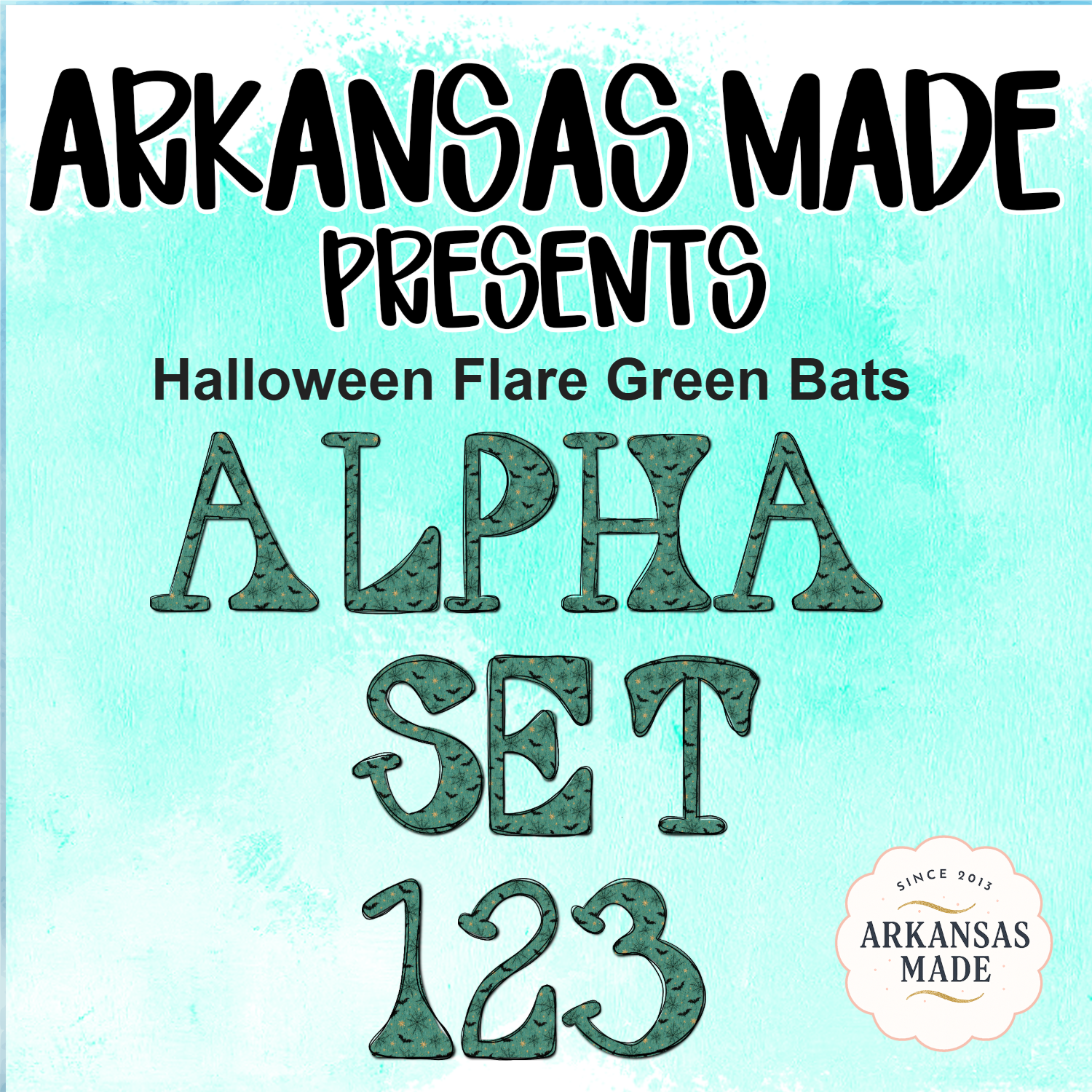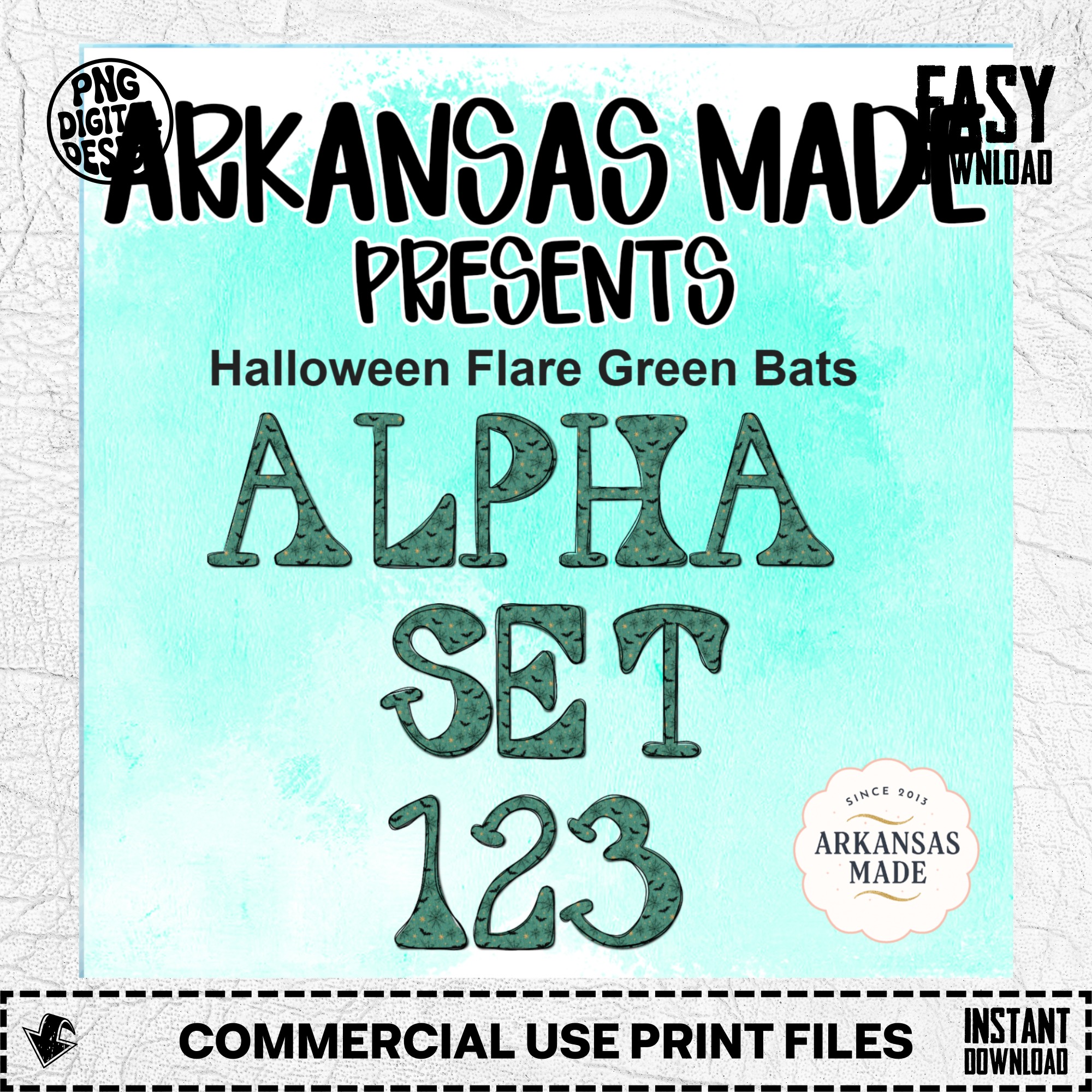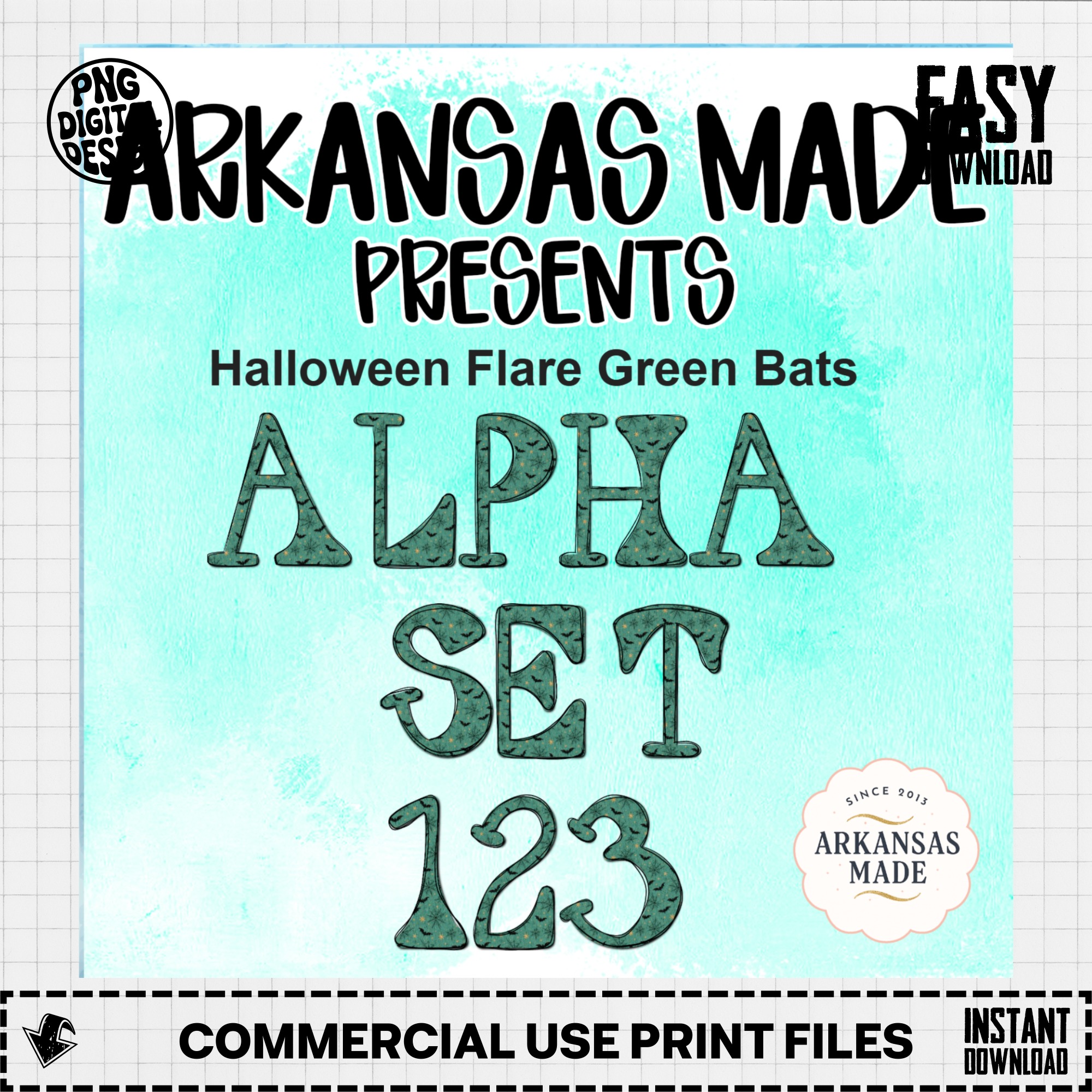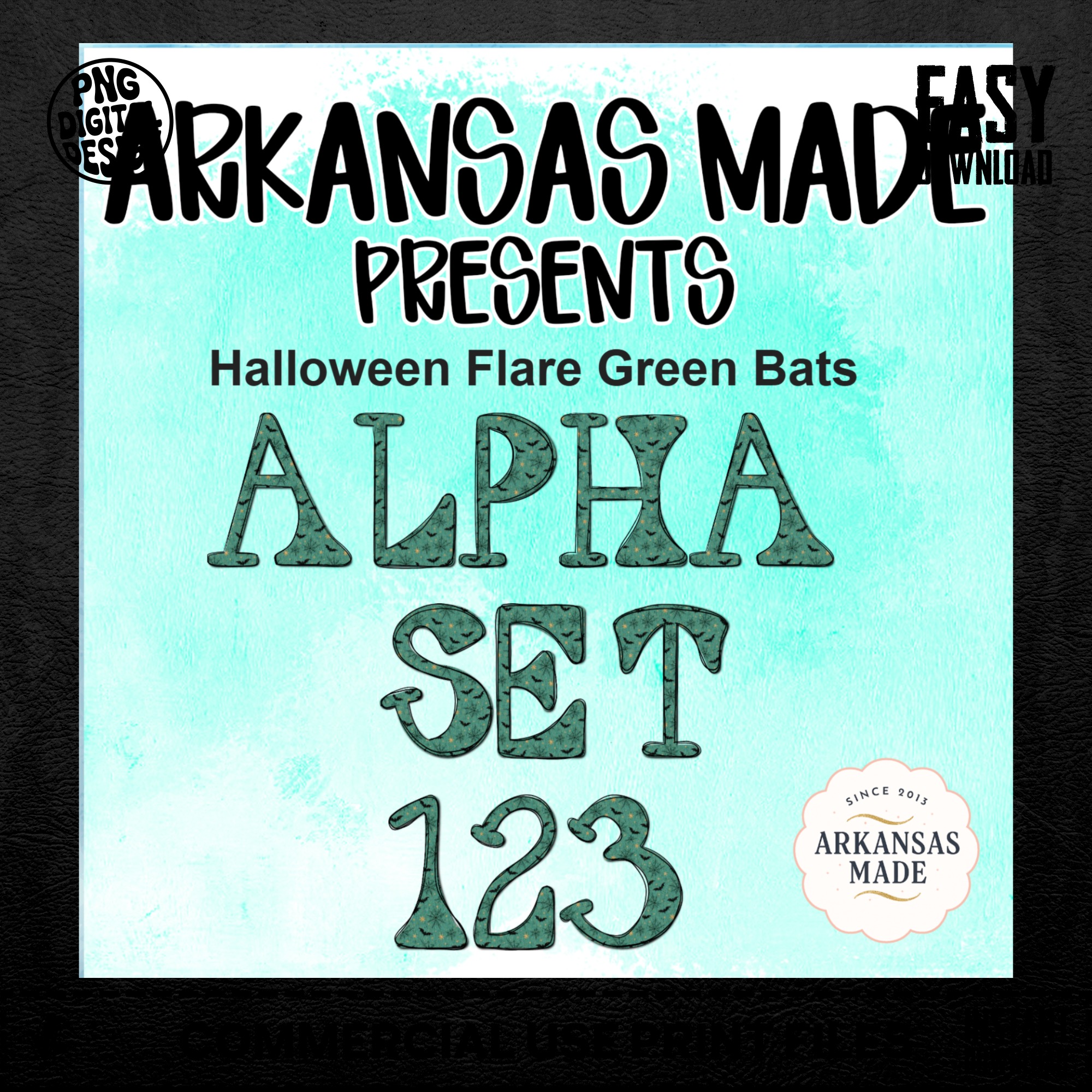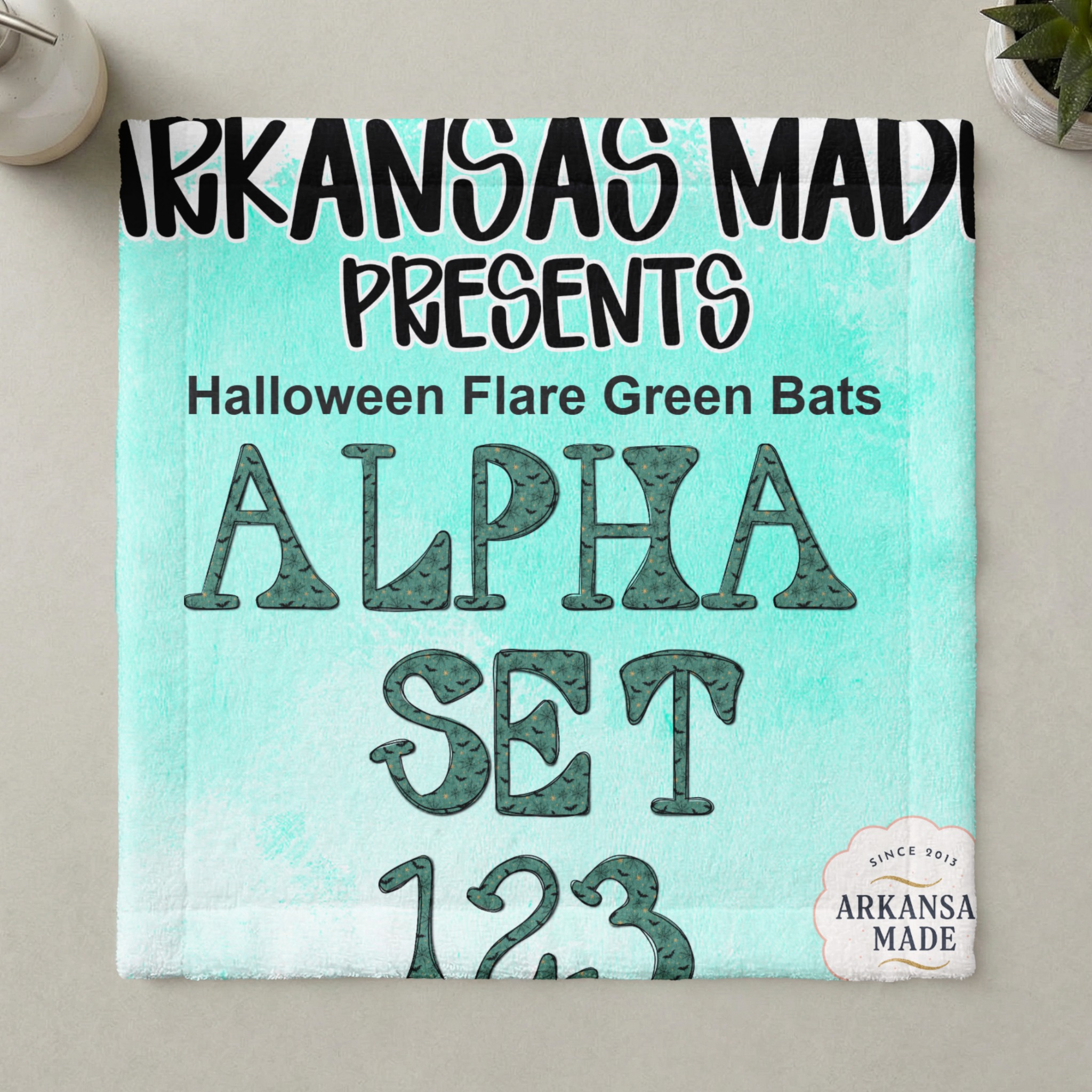
Halloween Flare Green Bats Alpha Set 123 Digital PNGs – Spooky Bat Alphabet & Faux Gold Spiderweb Font Letters for Crafts, Sublimation
Discover our Halloween Flare Green Bats Alpha Set 123 Digital PNGs, perfect for adding spooky charm to your spooky season projects. This unique bat and faux gold spiderweb letter collection brings a whimsical gothic vibe, ideal for crafters, digital artists, and DIY enthusiasts. Create unforgettable Halloween party invitations, sublimation designs, planner stickers, or personalize festive decor with these eye-catching printable letters. An ideal treat for any creative looking to elevate their holiday designs!